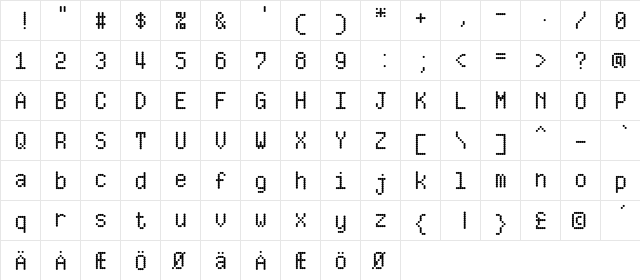
DM-80 Regular
Design Context for DM-80 Typeface
DM-80 offers clean, dependable letterforms without strong stylistic allegiance, making it a practical choice for designers who need flexibility.
Pro Tip: Use DM-80 in both headline and body roles to test its range before committing to a single application.